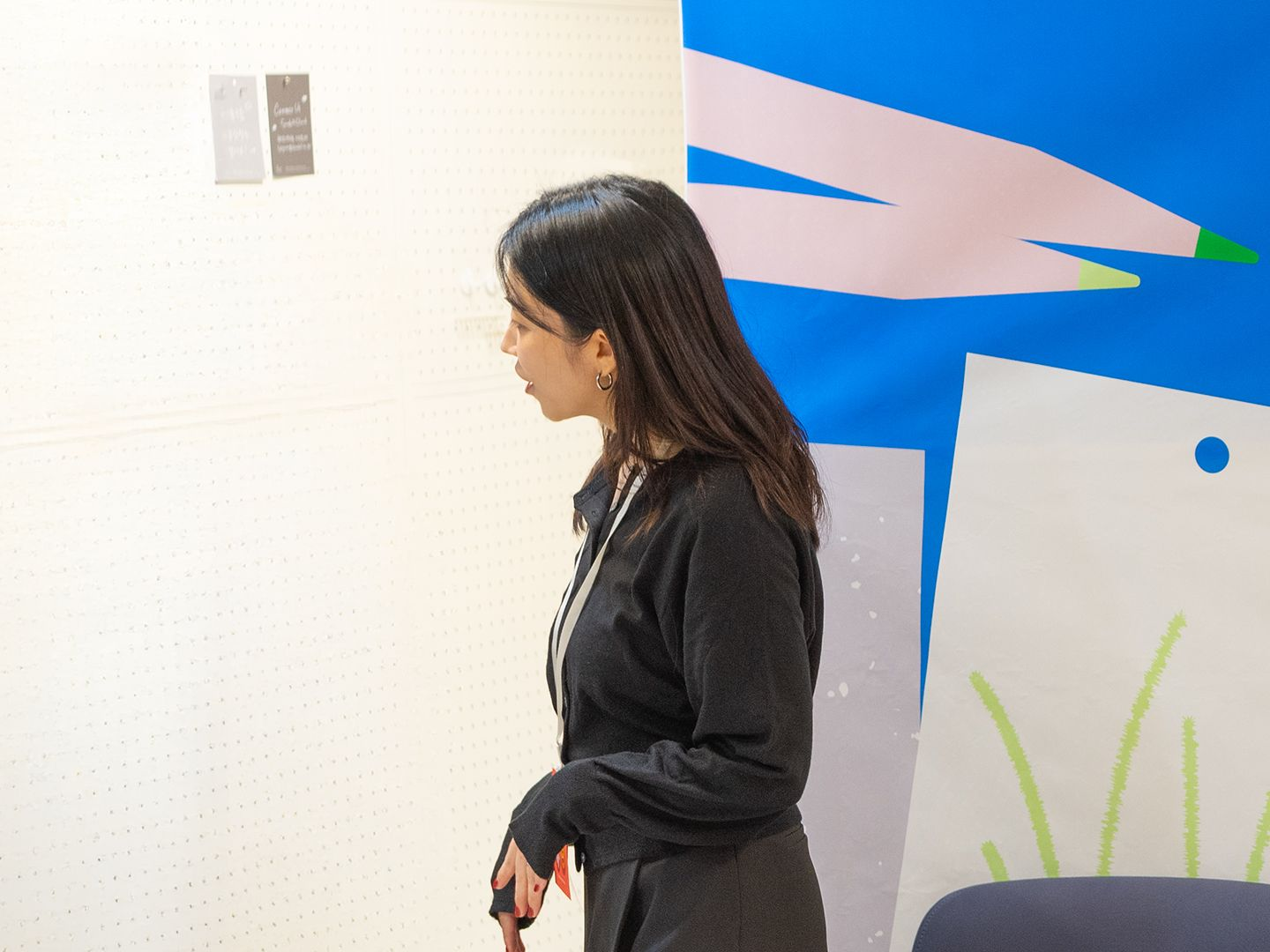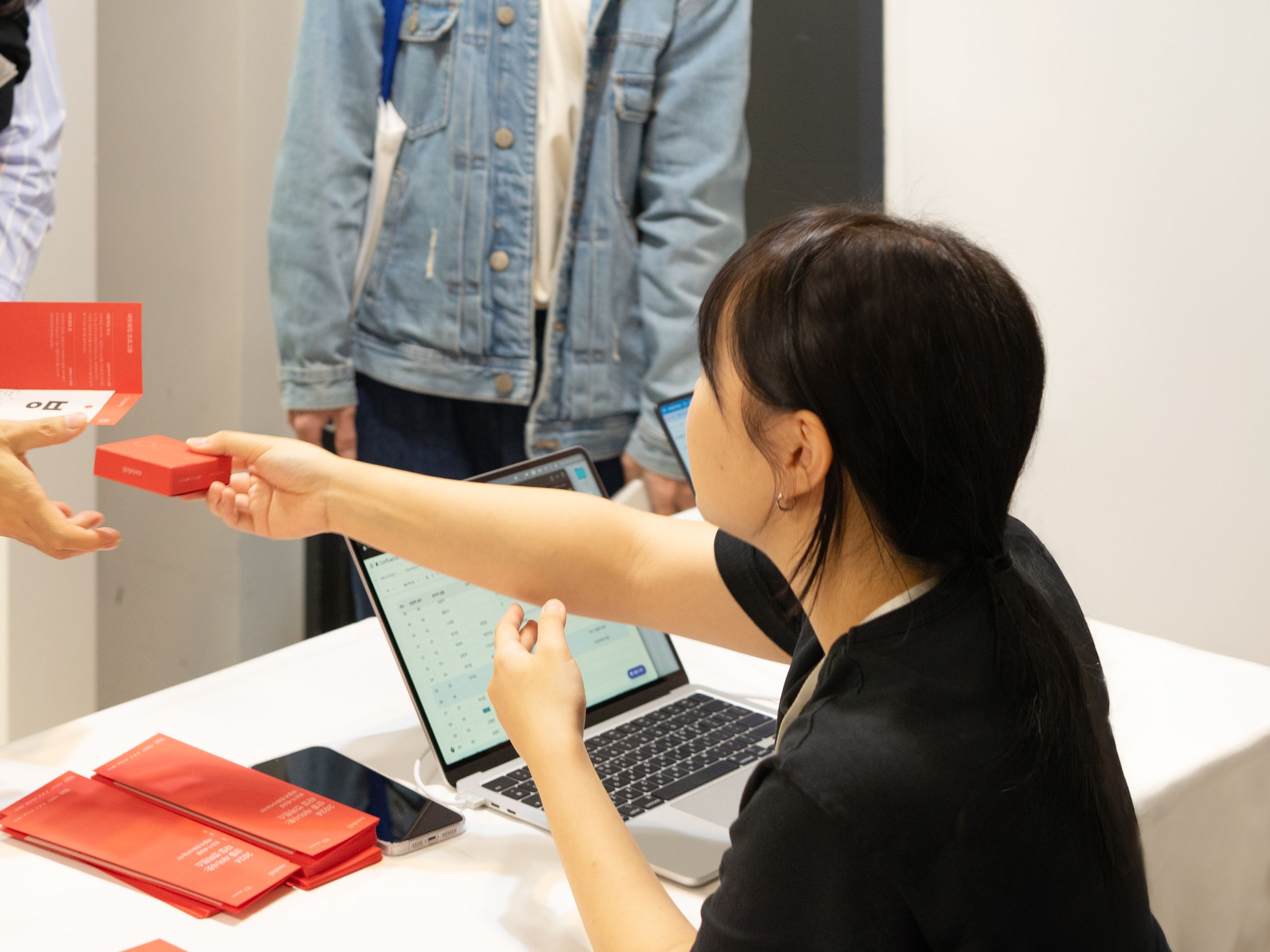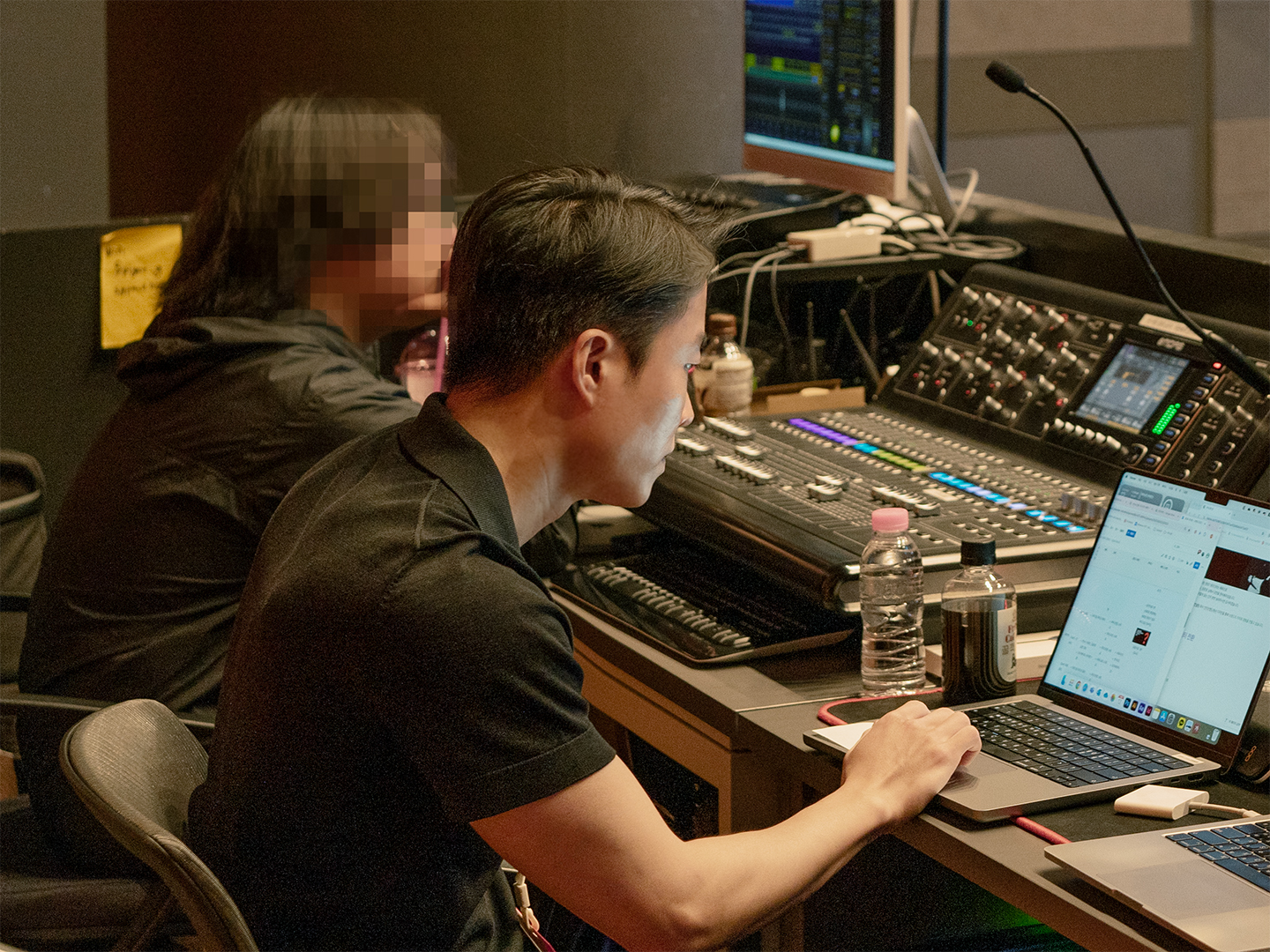
Q1. What do you do at Sandoll?
I work as a brand designer at Sandoll, building and managing the unified brand. I also design various touchpoints where brand activities take place, ensuring they align with the brand identity.
Q2. What was your role at [2024 Saisiot]?
As a designer, I worked on designing and installing the exhibition booth, signage, and display images to suit the on-site environment. I also designed promotional images for Sandoll’s online channels, including the website and social media.
Q3. What was the most memorable moment while preparing [2024 Saisiot]?
[2024 Saisiot] ran for nearly seven hours. By the final stretch, I was completely exhausted, yet a large number of attendees remained fully engaged through the last session. Watching this from behind the scenes, I truly felt that the work we do resonates deeply with many people, and it was a moment that carried a strong sense of responsibility for me.
Q4. This year’s theme was “How Do Fonts Change the World?” Do you think fonts can really change the world?
Absolutely. From BAEMIN to Apple, fonts have always been present in cases that have already changed the world. Fonts go beyond simply conveying text—they are powerful communication tools that move people, open minds, and help new ideas and changes take root.
Seeing how fonts drive change across various fields at [2024 Saisiot] made me even more excited about the possibilities and transformations that fonts can create in the future.
Q5. Lastly, how did it feel to take part in [2024 Saisiot]?
It can be difficult to quickly grasp how fonts are used across different industries. Through [2024 Saisiot], however, there was an opportunity to hear the latest conversations around fonts in one place. This experience made me realize just how many people are genuinely interested in fonts and the font industry, and it also made me think that we need to prepare even more engaging stories for next year’s conference.
Jeong Taeyeong, Type Design Researcher
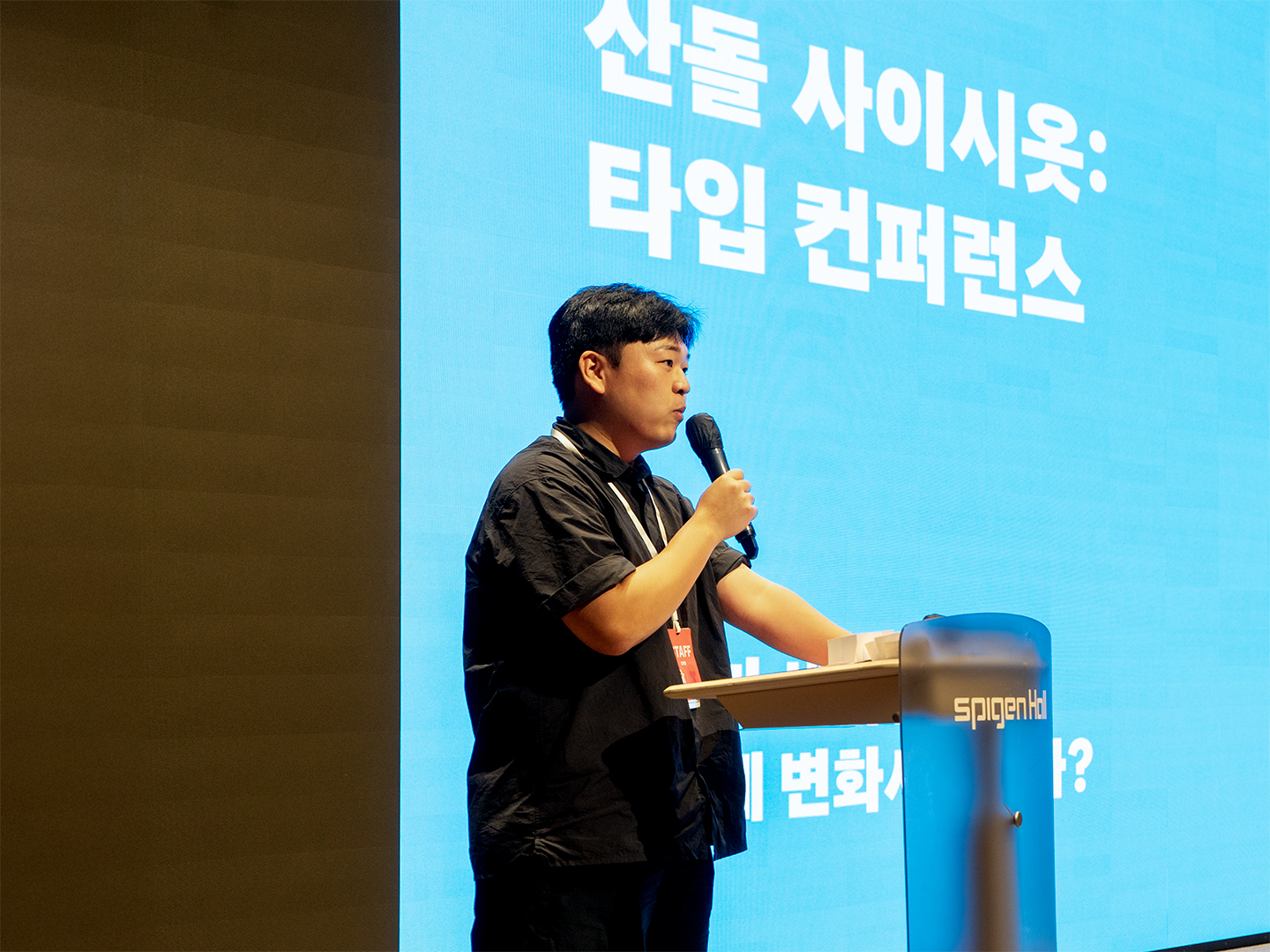
Q1. What do you do at Sandoll?
I am a researcher on the Type Tech Team at Sandoll, where I work on font technology and type design–related research and development. My work focuses on making fonts easier for anyone to create and even easier to use. To support clearer communication among those who design and work with Hangul, I conducted research on typographic terminology and published the paper Hangul Typeface Terminology 2022. I also carried out the Hangul Typeface Classification study, which systematizes classification methods for Hangul fonts and has been applied to improving font search filters on the Sandoll Cloud service. Currently, I am researching the Hangul font standard (SD-KR) to enhance the usability and quality of Hangul fonts.
Q2. What was your role at [2024 Saisiot]?
I prepared a booth to introduce the SD-KR project mentioned earlier to visitors. I contributed to planning and designing the booth together with Changseop Lim, Team Lead of the Type Tech, and Yeoreum Kim, Team Lead of the Brand Design. I also served as the moderator, working closely with Sooyoung Kim, PD from the Brand Design Team, to smoothly connect each lecture and guide the conference from beginning to end.
Q3. What was the most memorable moment while preparing [2024 Saisiot]?
The moment that stands out most to me is welcoming the audience with a mix of nervousness and excitement, watching the empty seats gradually fill one by one, and then seeing most of the venue filled just before the first lecture began—followed by the rush of nerves and anticipation as it was time to step up and announce the start of the conference.
Q4. This year’s theme was “How Do Fonts Change the World?” Do you think fonts can really change the world?
As the saying goes, “language shapes thought,” and fonts, as a form of visual language, are deeply intertwined with the way we think. Just as one would dress neatly for an important meeting, when serious guidance and clear communication are required, people instinctively choose clean, no-nonsense body text fonts. Fonts already exist as part of the world around us, exerting influence both large and small. The impact that 「Gotham」 had during the 2008 U.S. presidential election may well be one of the most powerful examples of a font’s influence in a single moment.* If a font can help change a president, couldn’t it also change the world?
Q5. Lastly, how did it feel to take part in [2024 Saisiot]?
As someone who makes fonts, meeting people who use them is always a pleasure. It was wonderful to hear stories from people I had long admired from afar and to share a few laughs together. Above all, as a true font enthusiast, I was delighted to spend an entire day openly talking about fonts.
Jeong Hyuna, Type Designer
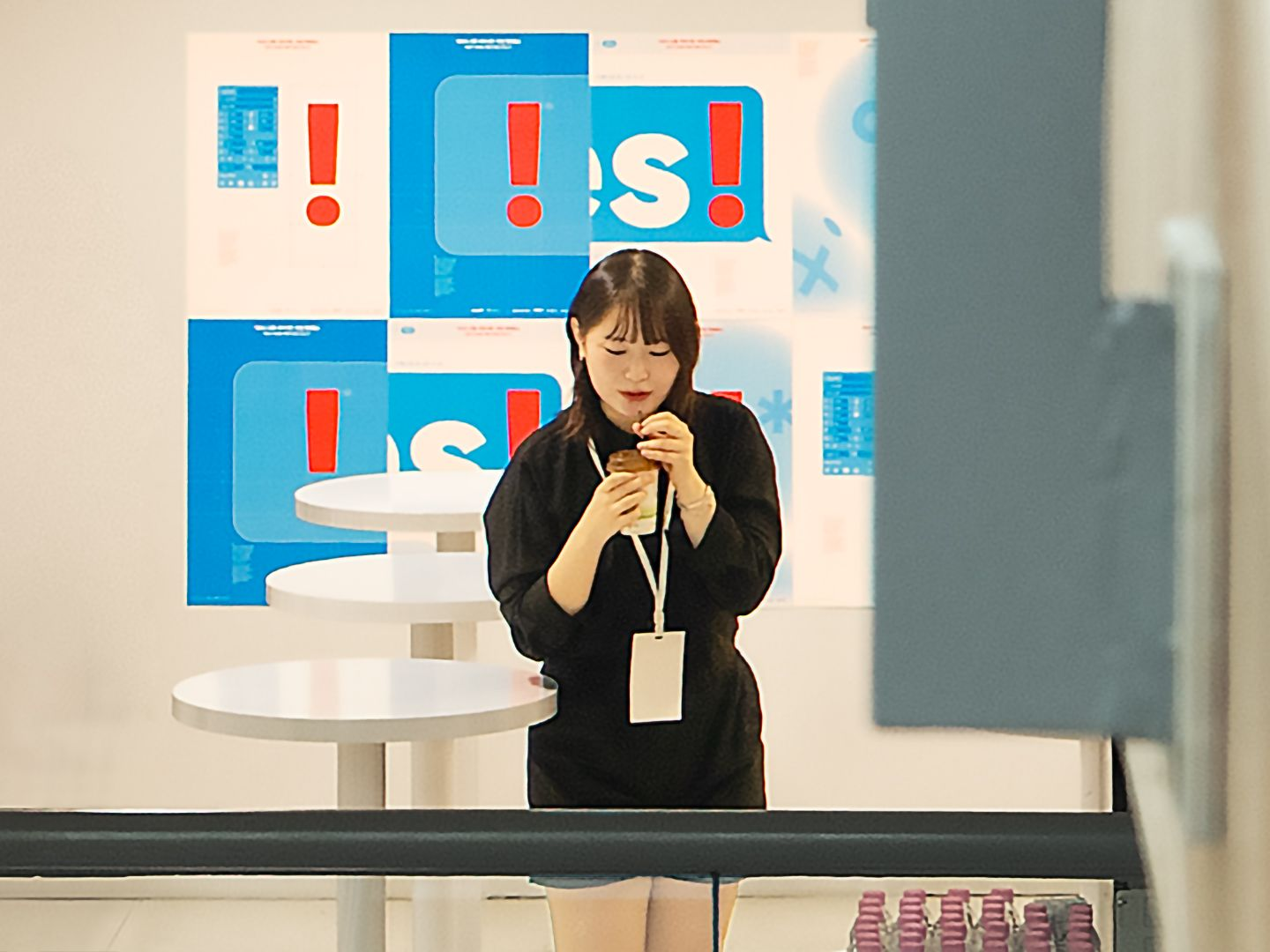
Q1. What do you do at Sandoll?
I work as a type designer at Sandoll. I design custom fonts that capture a company’s voice, and I also plan and produce retail fonts available on Sandoll Cloud. My key projects include contributing to SKT’s corporate font display and the SC and TC* versions of 「IBM Plex Sans」. On Sandoll Cloud, I created 「SD Cosmo」.
Q2. What was your role at [2024 Saisiot]?
On the day of the event, I was responsible for welcoming visitors at the entrance and guiding them to their seats and around the venue. As someone who enjoys greeting people and networking, I was able to approach the role with enthusiasm. Meeting a wide range of attendees and experiencing the lively atmosphere of the event firsthand made it an especially meaningful experience.